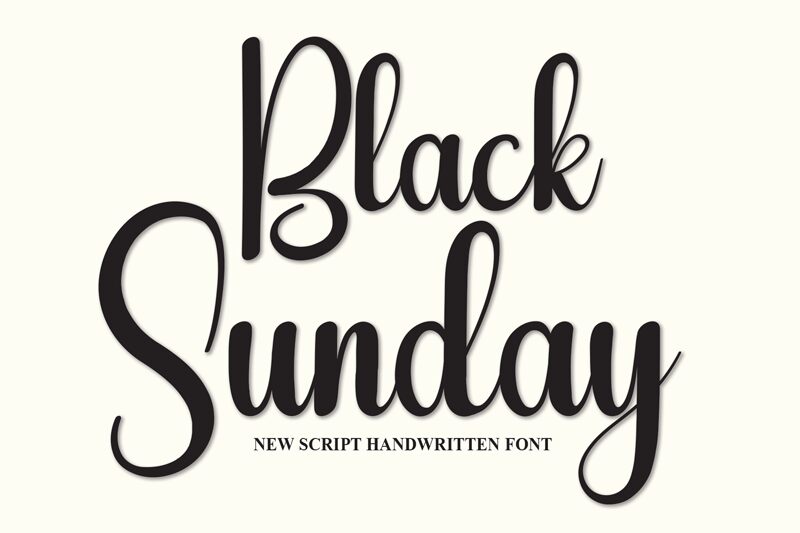
Black Sunday
Black Sunday, a creation by Scratchones, is a handwritten font that exudes a personal and intimate charm. Its fluid strokes and natural variation in thickness convey a sense of elegance and flair often found in traditional calligraphy. The aesthetic appeal of Black Sunday lies in its ability to strike a balance between sophistication and the raw beauty of handcrafted artistry.
This font finds its place where the warmth of human touch is required to soften the edges of digital design. Ideal for invitations, branding projects, and editorial work, Black Sunday invites an audience seeking that bespoke experience, adding a touch of individuality to any project it graces.